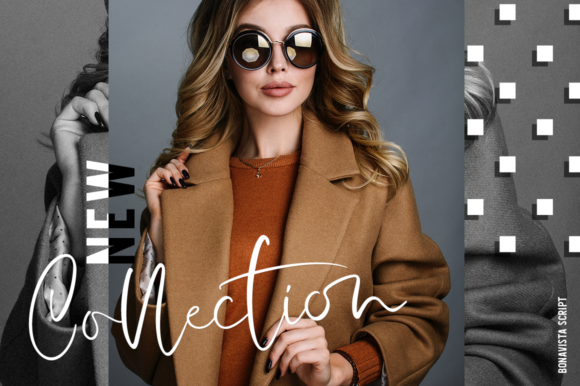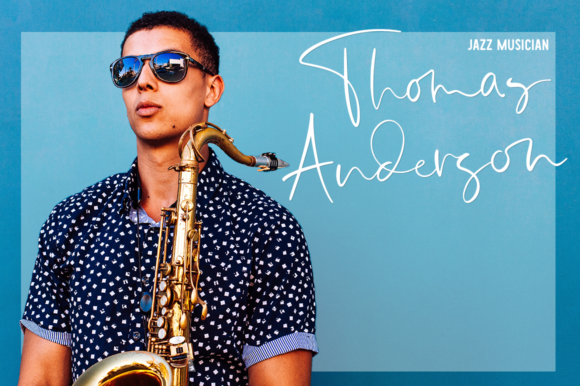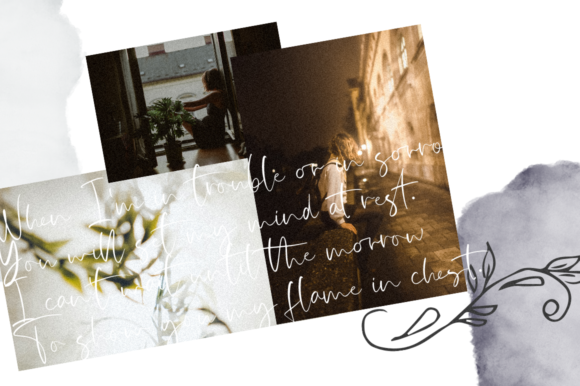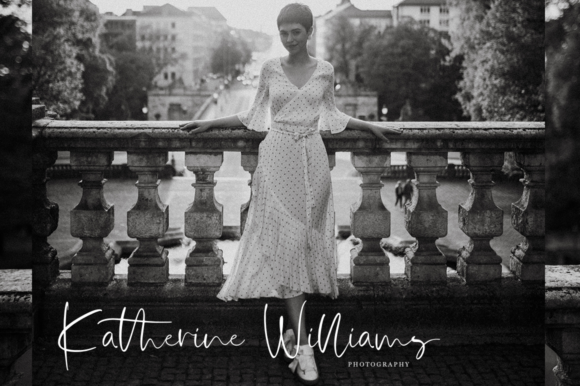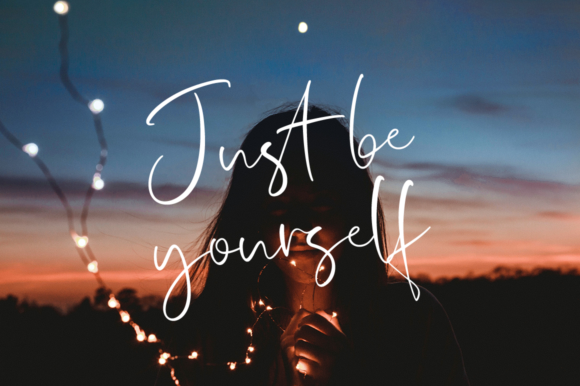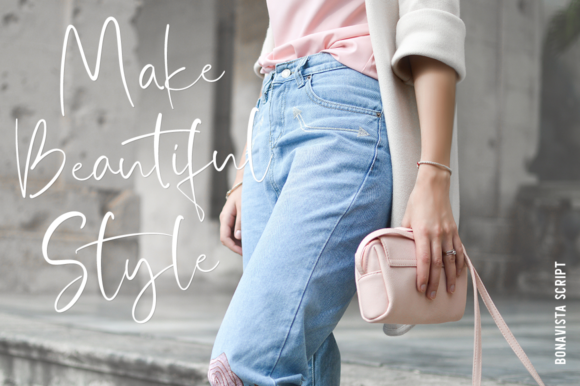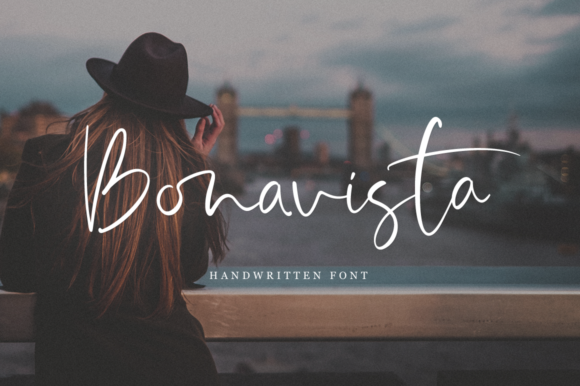
The Bonavista Font: A Handwritten Gem for Your Designs
So, what makes Bonavista so special? Let’s dive in!
- ✨ Natural, handwritten feel: Bonavista has a beautifully organic feel to it, making it perfect for branding, packaging, and any project that needs a personal touch.
- ✅ Highly legible: Despite its handwritten nature, Bonavista is incredibly easy to read, even at smaller font sizes.
- 💫 Versatile: This font is suitable for a wide range of projects, from elegant wedding invitations to playful craft labels.
While Bonavista is an amazing font, it’s not perfect. Here are a few things to keep in mind:
- 🤔 Limited use of all-caps: While Bonavista looks great in upper case, it’s not the most suitable font for long, all-caps texts. It’s best used in titles, headings, or short paragraphs.
- ⚠️ Some letters may require manual kerning: As with any handwritten font, you may need to adjust the kerning of certain letters to get the perfect look.
- Experiment with OpenType features like Stylistic Alternates to add more flair to your text.
- Explore the Glyphs panel to access alternative characters, ligatures, and other OpenType features.
The Story Behind Bonavista
Bonavista was designed with love and care by a talented type designer who wanted to create a font that felt both personal and professional. Inspired by the beautiful landscapes and handwritten notes from her travels, she crafted a font that’s both elegant and approachable. The result is a typeface that’s perfect for adding a touch of warmth to any design.
| What makes Bonavista unique? | Bonavista’s natural, handwritten feel and high legibility make it a standout font for designers. |
| Is Bonavista suitable for body text? | While Bonavista is beautiful, it’s best used for headings, titles, and short paragraphs. For longer body text, a more traditional font might be more suitable. |